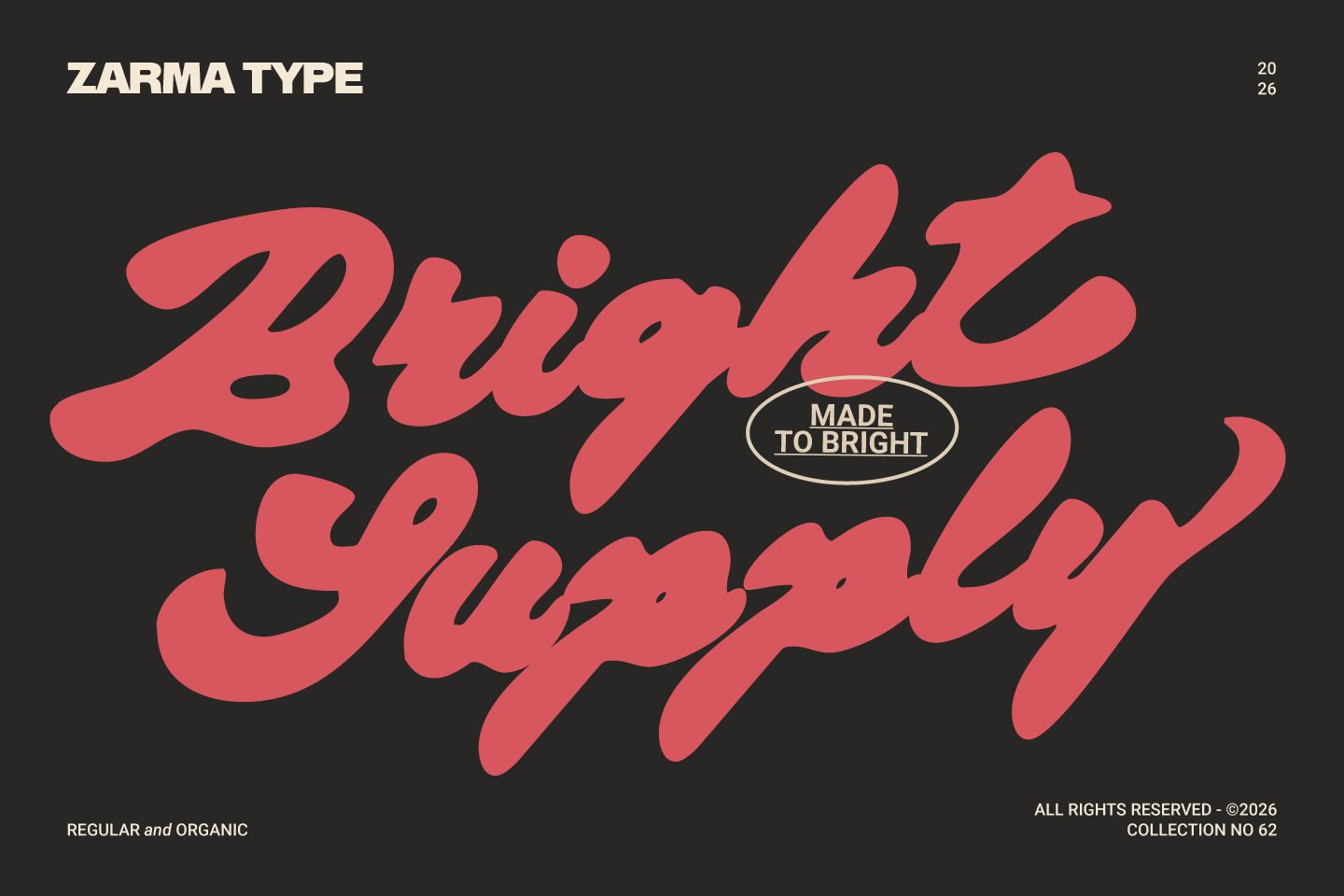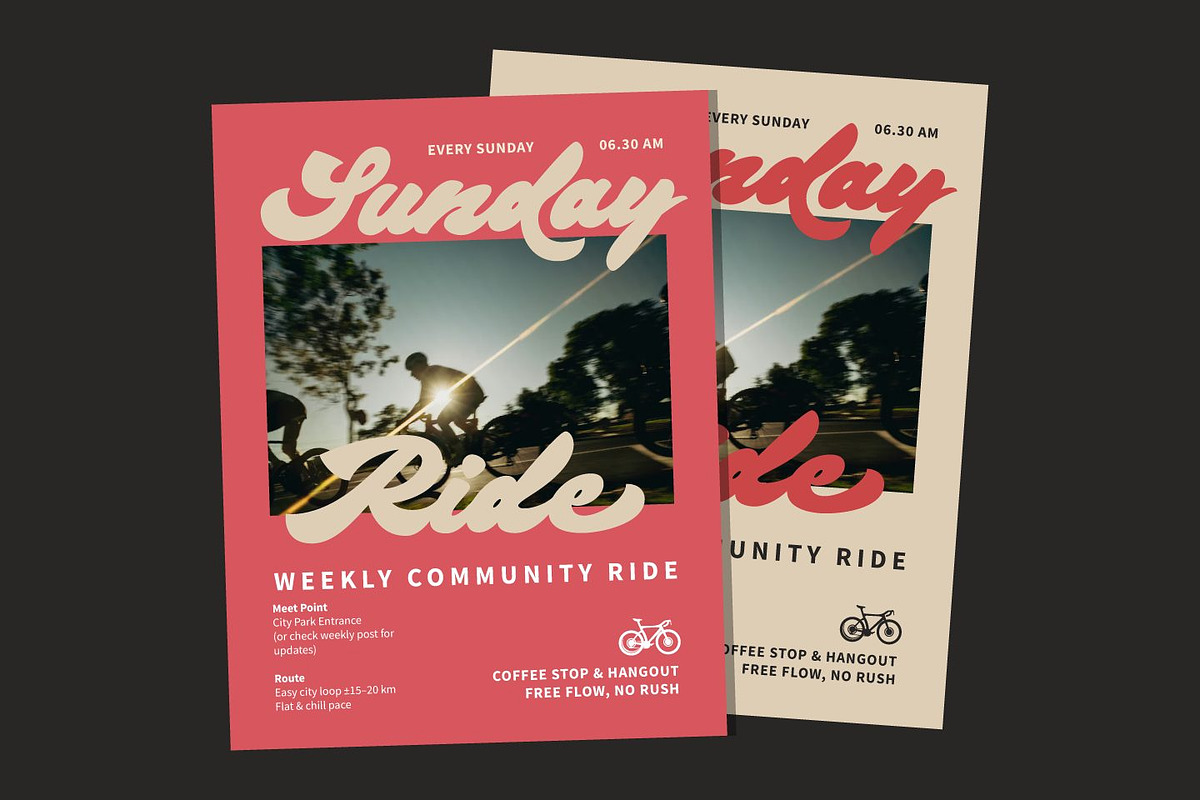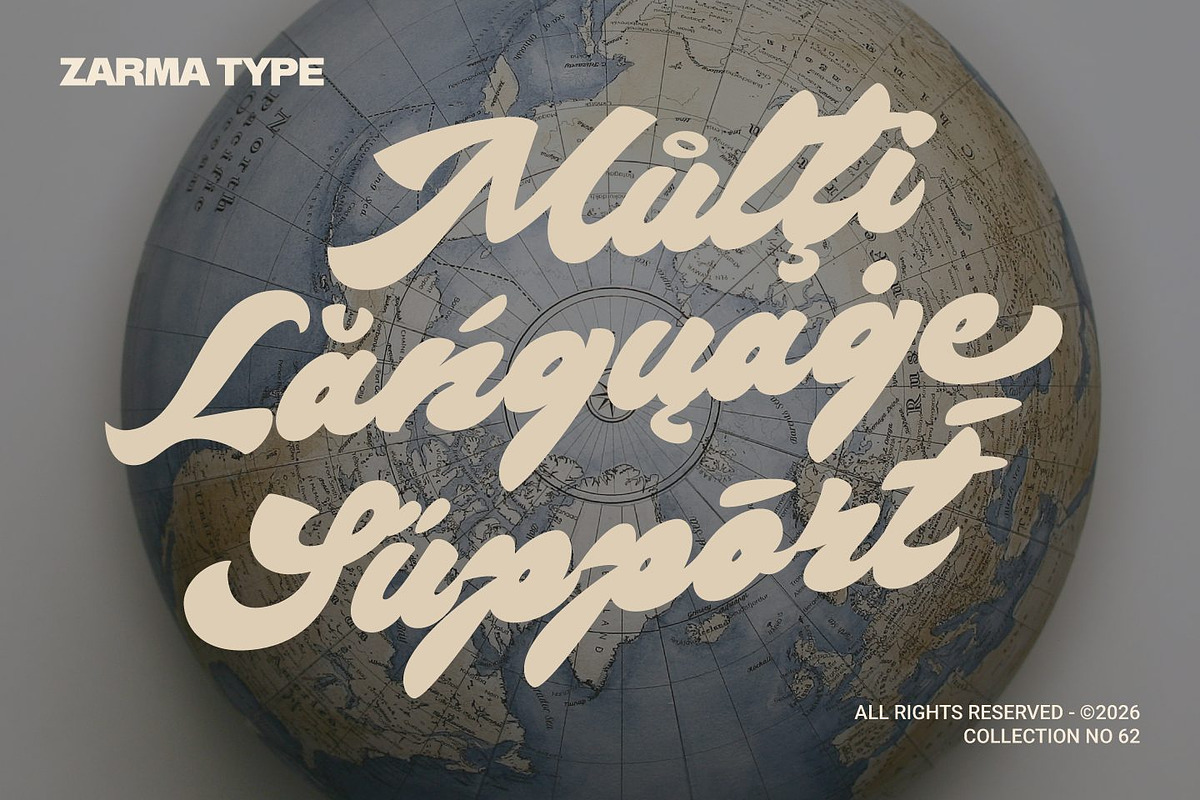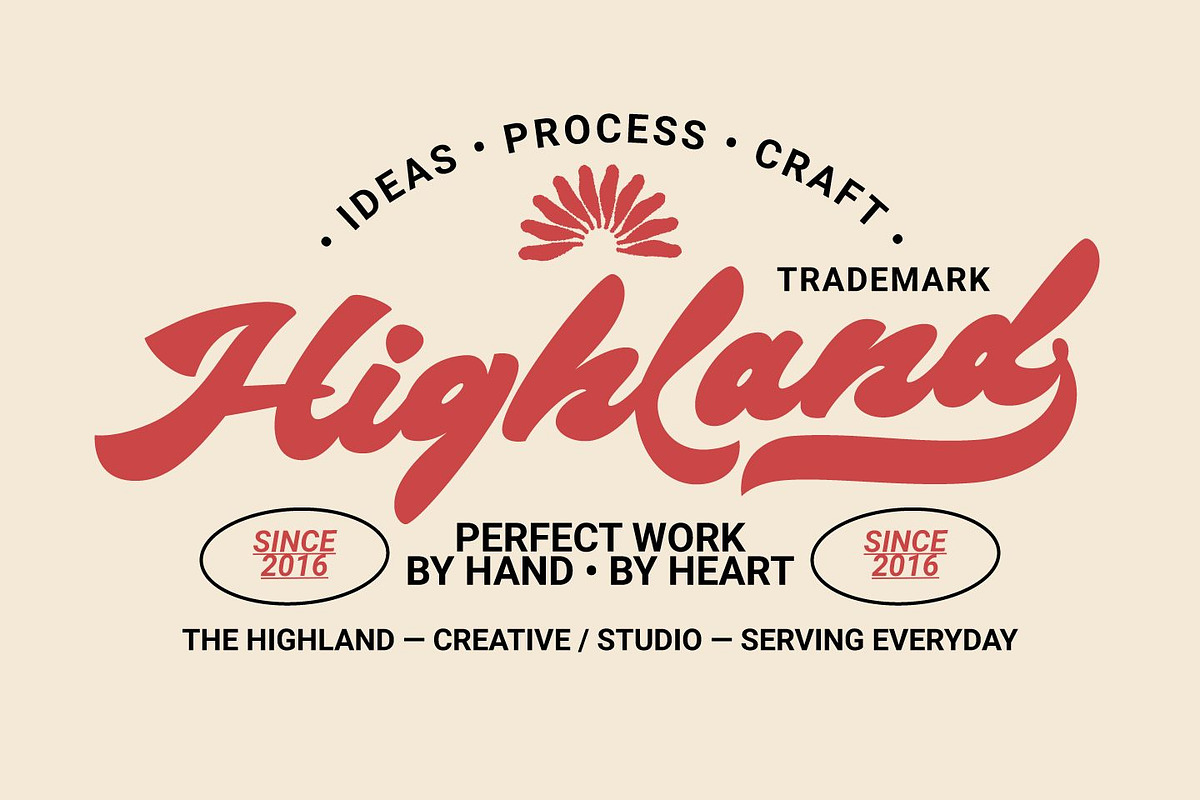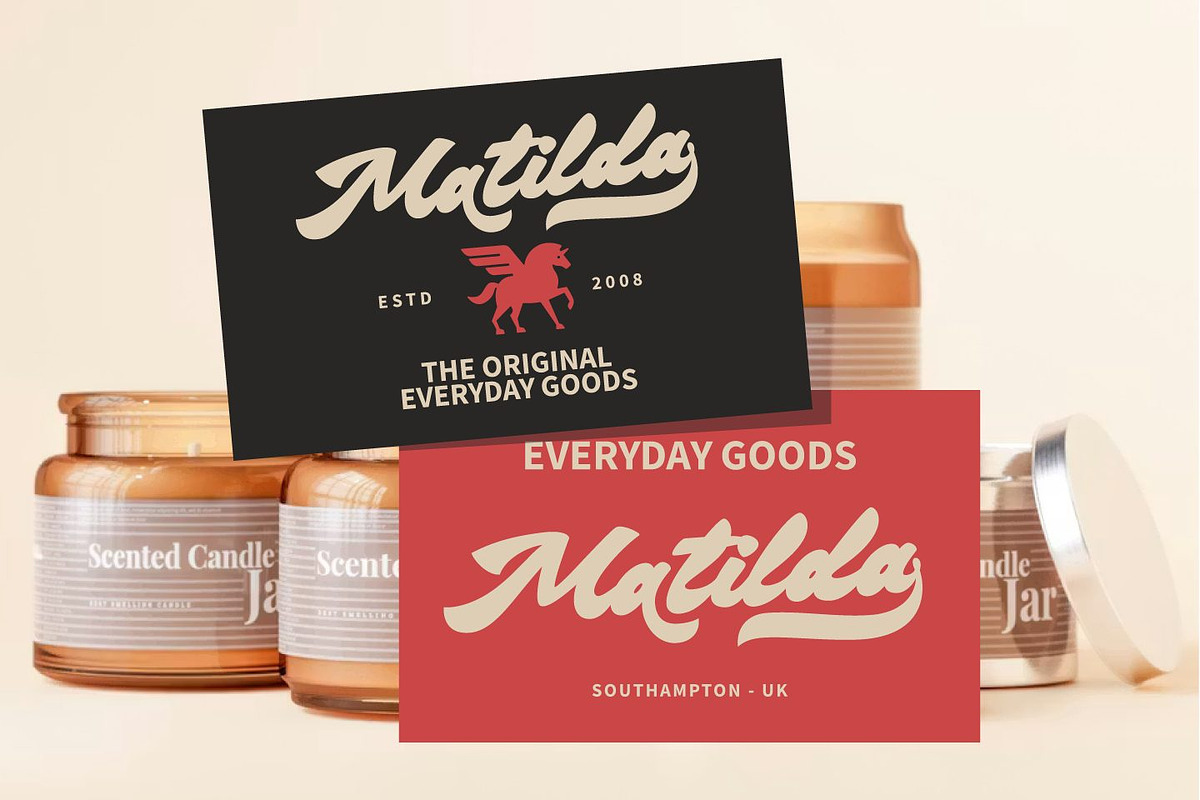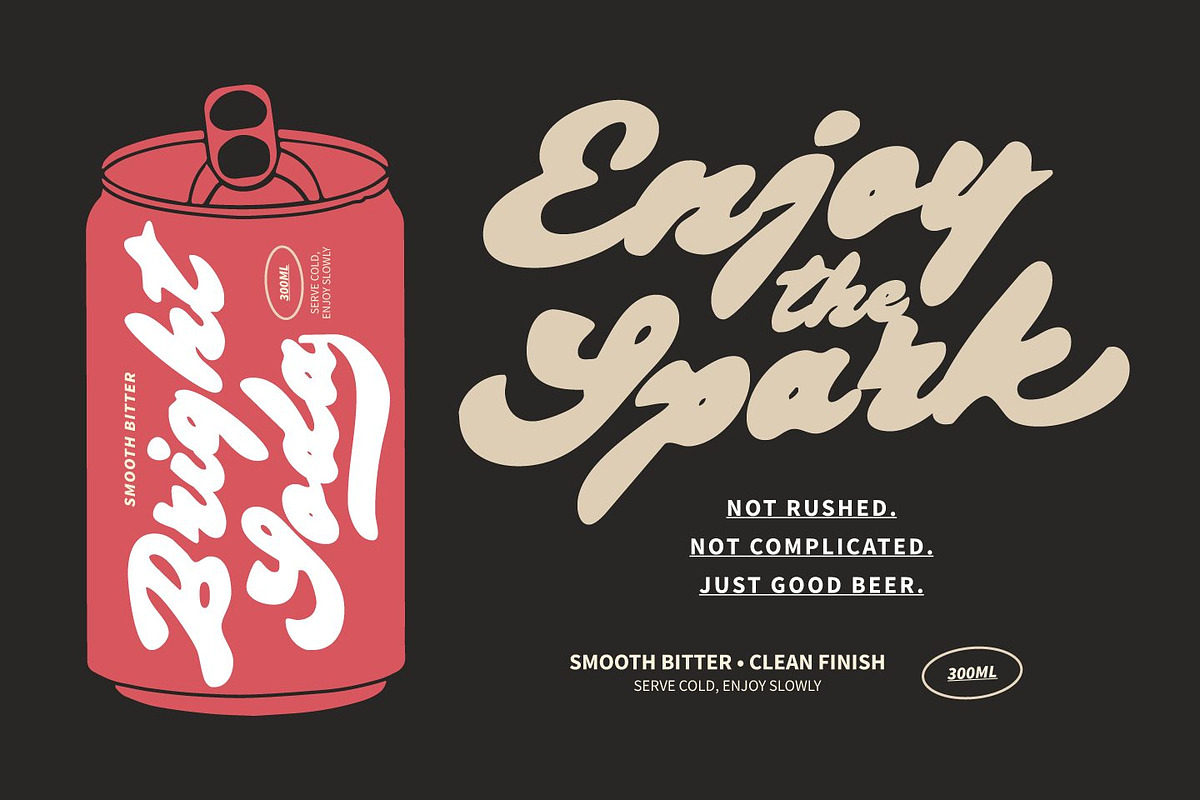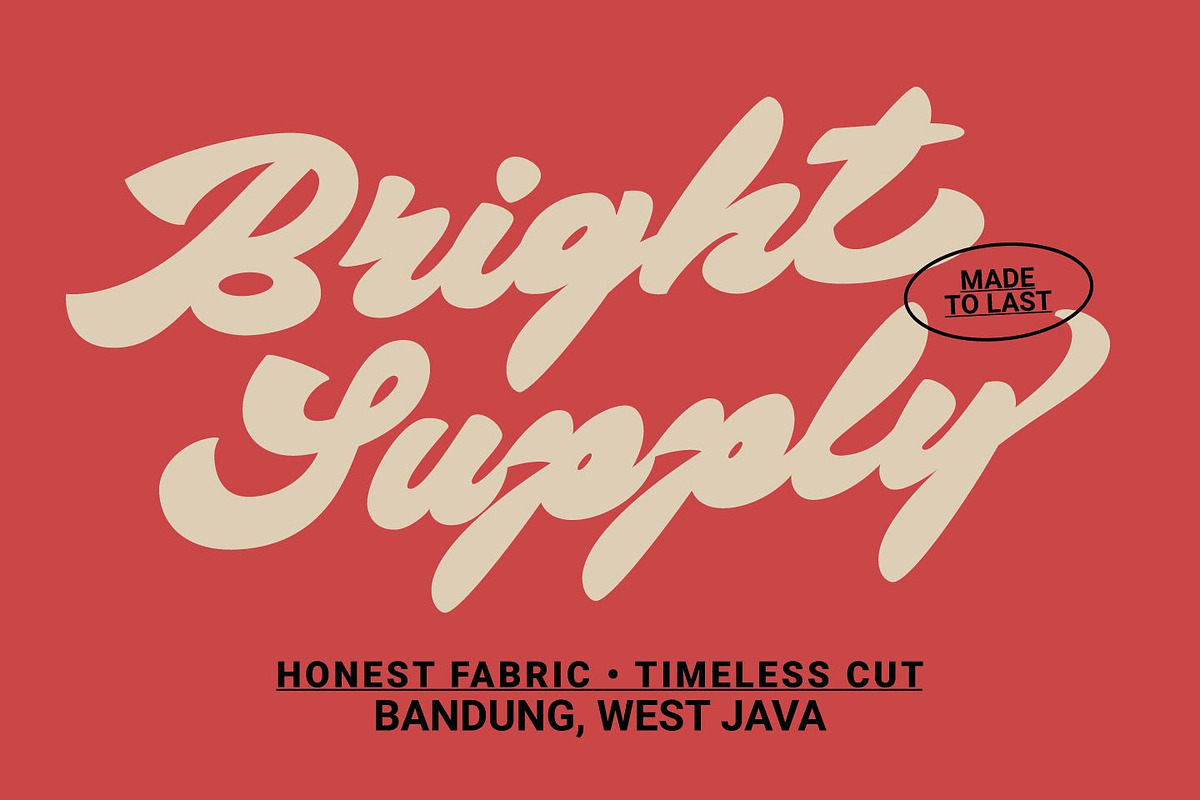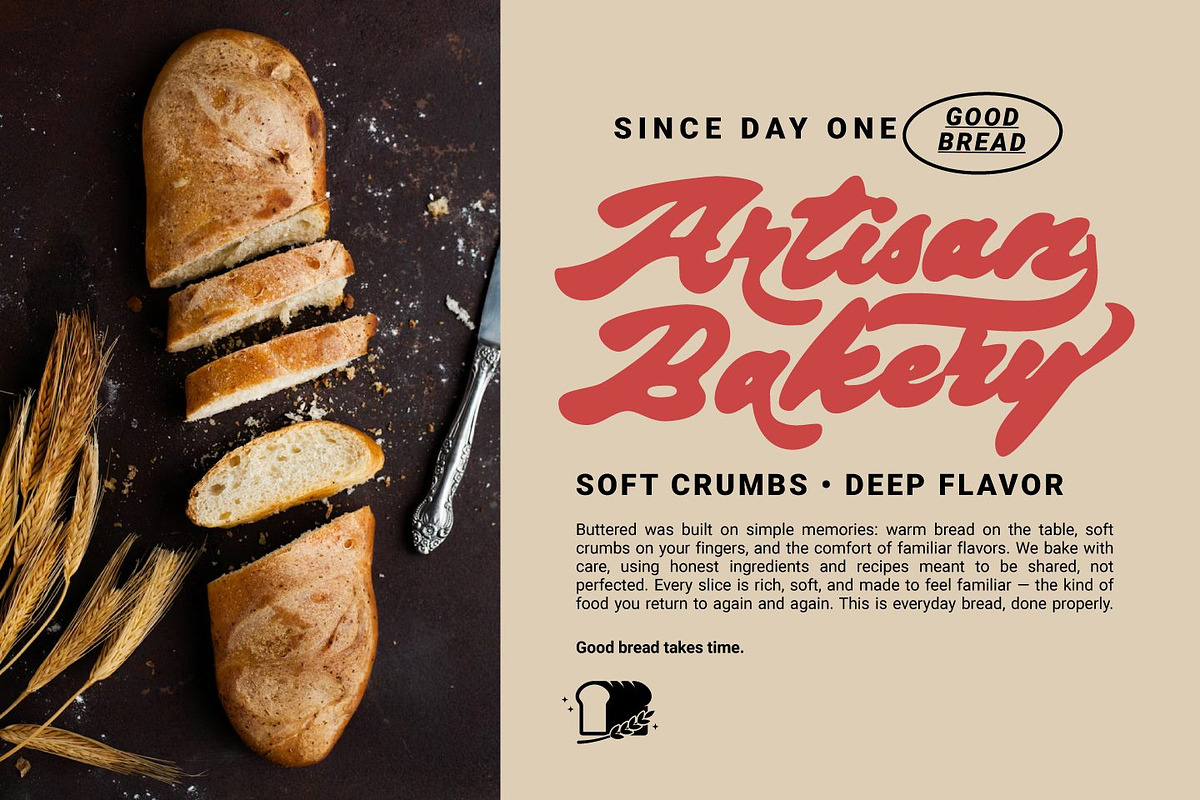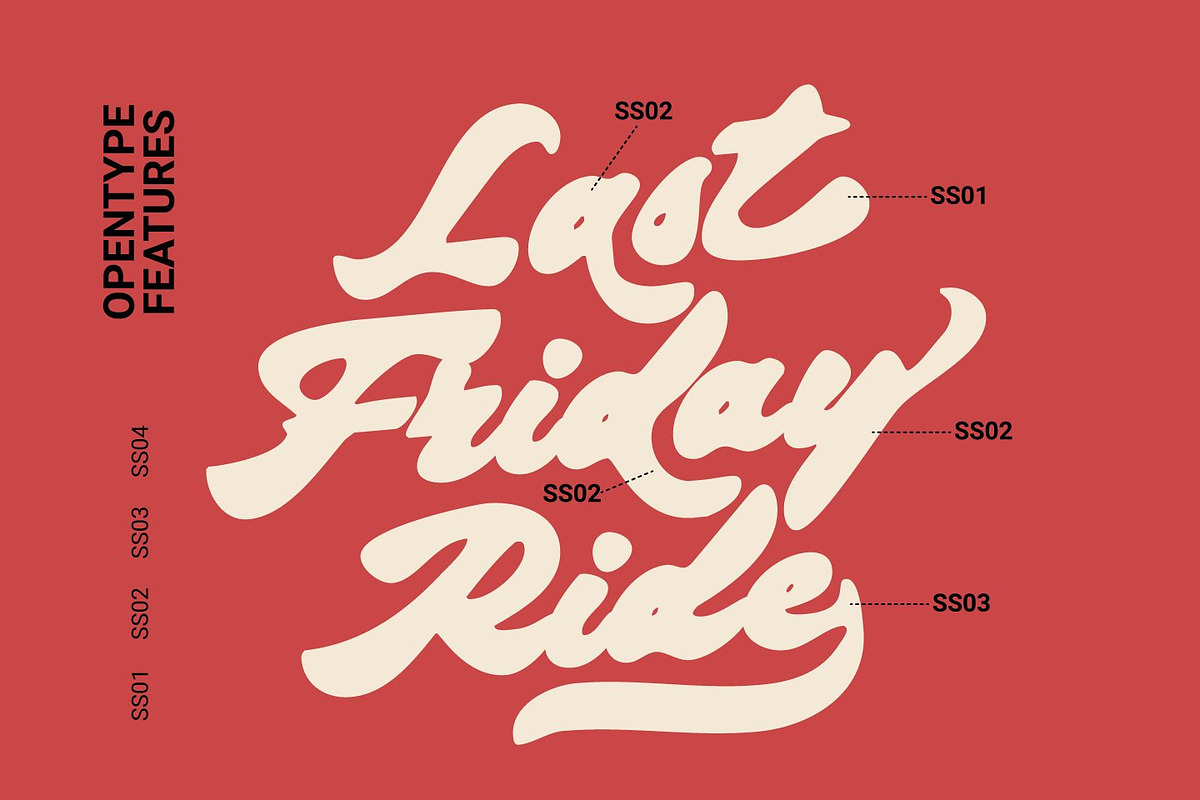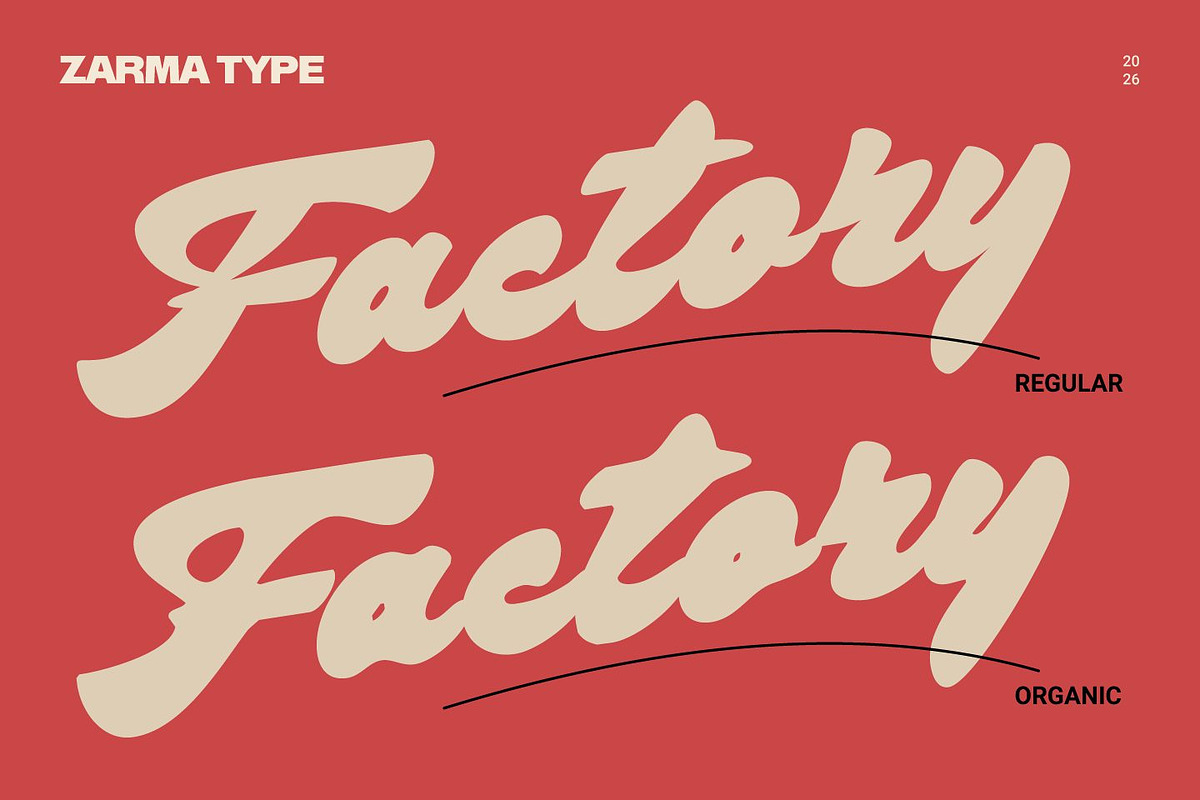
Bright Supply - Bold Script Font
Bright Supply is a bold script font made to bring warmth, confidence, and handcrafted charm into every word. Its thick flowing strokes feel smooth and substantial, while the rounded rhythm keeps each headline lively and easy to notice. The regular style looks polished and clean, perfect for logos, posters, and product labels. Meanwhile, the organic style adds a more natural texture, giving your work a softer, more expressive feel that suits artisanal branding and everyday packaging.
Designed for standout branding, Bright Supply works beautifully across café menus, bakery labels, merchandise, and social graphics. The bold script structure gives your message strong visual weight, while the organic font option adds a relaxed handmade mood. Whether you want a neat vintage-inspired identity or a more organic and approachable look, this typeface gives you both in one family. That balance makes Bright Supply ideal for designers who want bold lettering with personality, flexibility, and a timeless creative feel.
Perfect for: Logo design, packaging, café branding, bakery labels, beverage branding, posters, merchandise, signage, social media graphics, display headlines.
- 2 Styles Script: Regular & Organic
- Numbers and Punctuation
- Ligatures, Stylistic Alternates and Swash